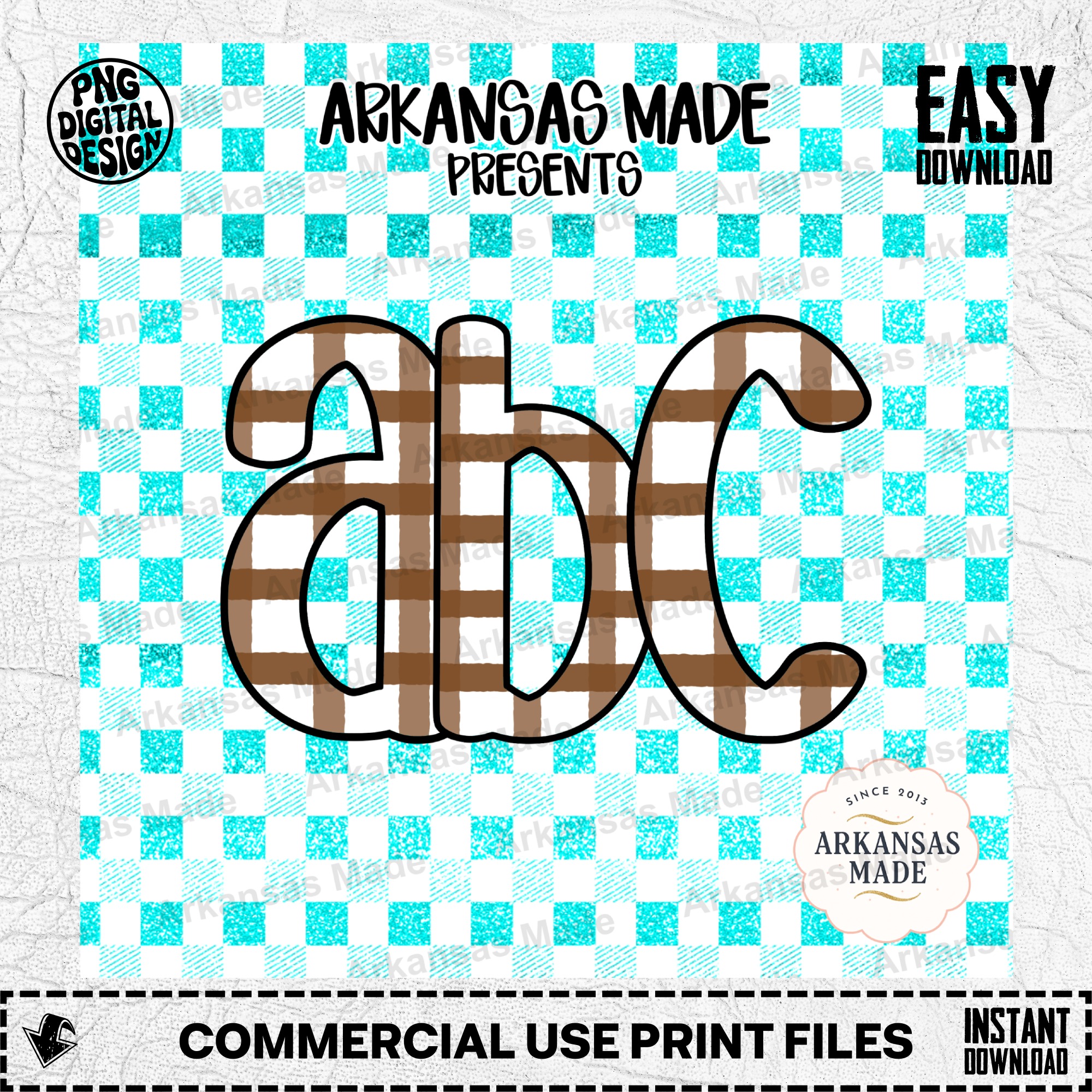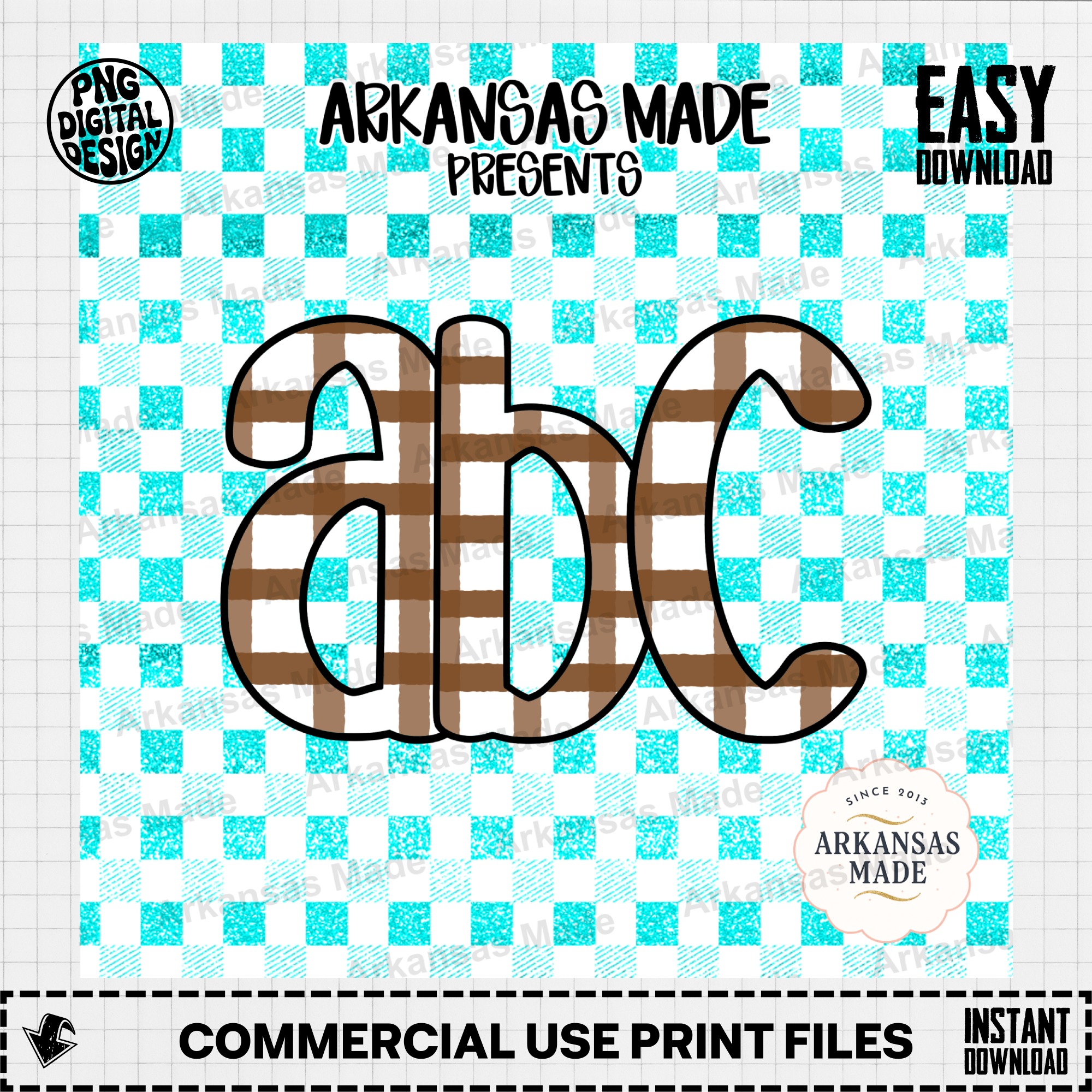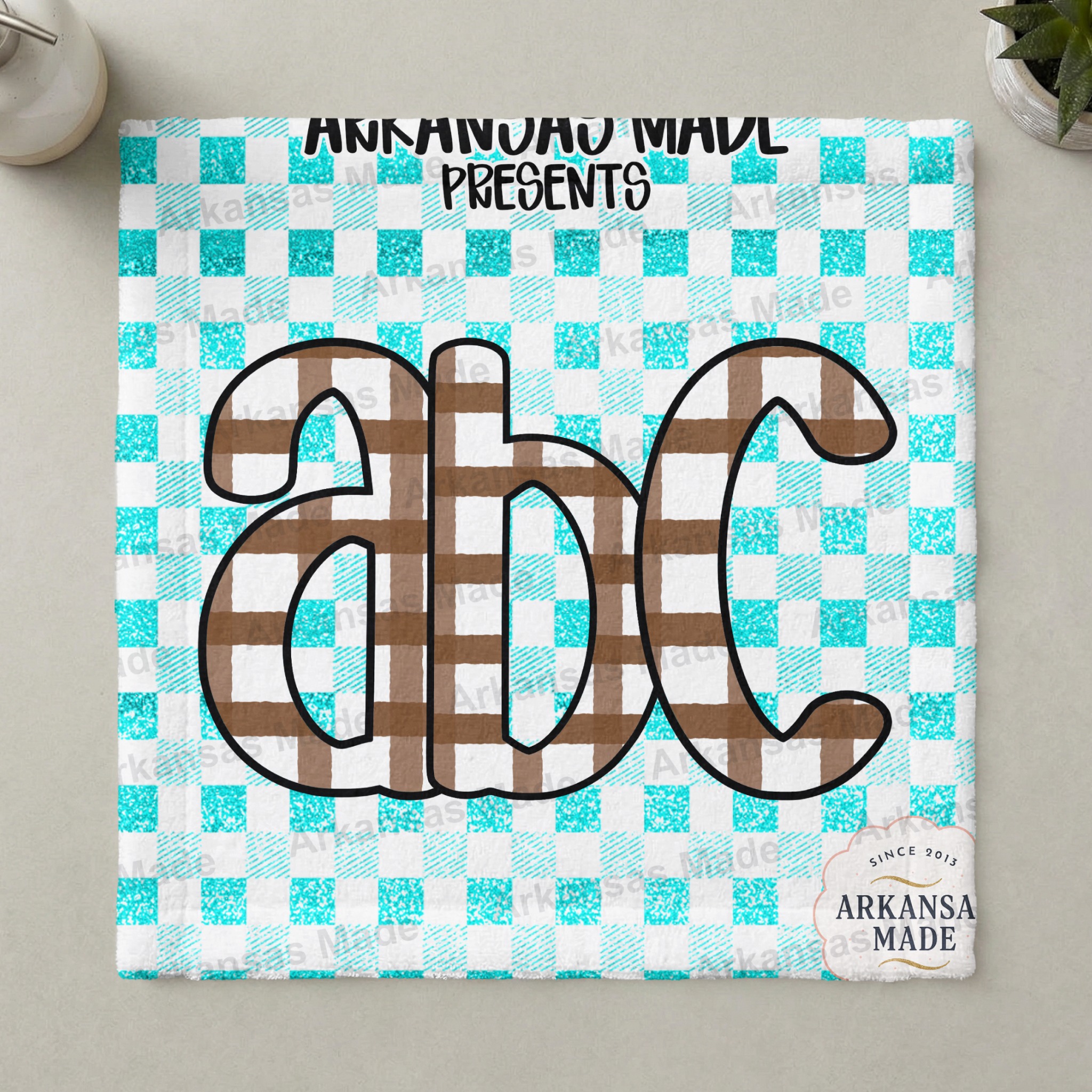
Plaid abc Digital Download Alpha Set, Brown Buffalo Plaid Letters, Teal Glitter png Font, Rustic School Clipart, Teacher Gift diy
Elevate your creations with this charming Plaid ABC Digital Download Alpha Set, featuring brown buffalo plaid and faux teal glitter letters. This versatile alphabet set brings a rustic yet playful touch to any project. Perfect for crafters, teachers, and parents, it’s ideal for personalized gifts, school supplies, nursery decor, or farmhouse-themed designs. Inspire creativity for back to school projects or unique baby shower gifts.